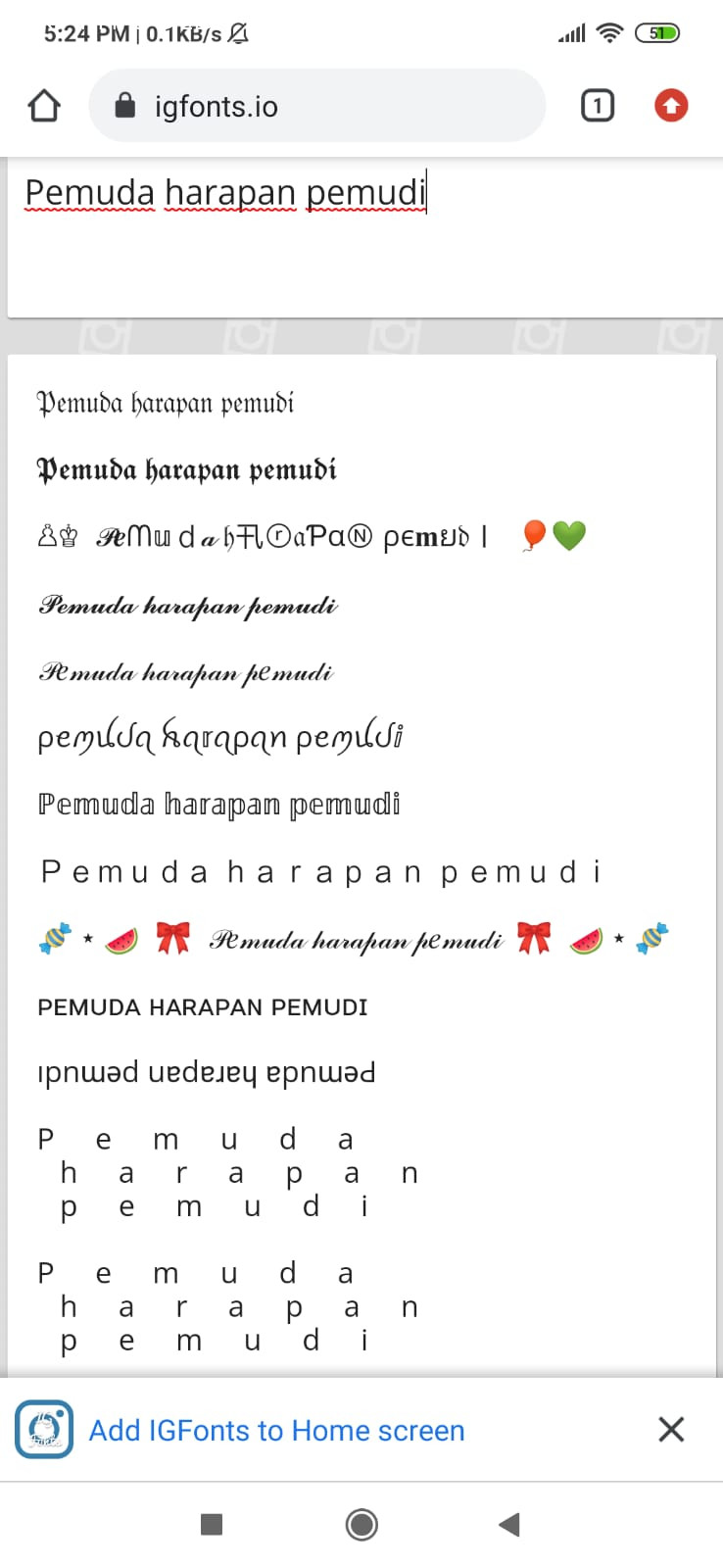
Stunning Fonts To Elevate Your Instagram Aesthetic
Title: 10 Instagram-Worthy Type Designs That Will Make Your Content Pop!
Introduction:
In the visually-driven world of Instagram, standing out from the crowd is essential. One way to captivate your audience is by incorporating unique and eye-catching type designs in your posts. Enter font keren ig, a treasure trove of trendy and innovative fonts that can transform your Instagram game to the next level. From elegant scripts to bold and playful designs, we’ve rounded up 10 Instagram-worthy type designs to inspire your next post. Sit back, relax, and get ready to discover the perfect fonts that will make your content pop!
1. Calligraphy Chic:
Inject a touch of elegance and sophistication into your Instagram feed with calligraphy fonts. These graceful and fluid type designs add a sense of grace to any post, making them perfect for inspirational quotes, wedding announcements, or stylish captions.
2. Whimsical Handwriting:
Capture the essence of creativity and playfulness with whimsical handwriting fonts. These fonts mimic the flow and spontaneity of handwritten text, giving your posts a unique and personal touch. Utilize them for artsy quotes, recipe cards, or life updates to truly showcase your personality.
3. Retro Vibes:
Take a nostalgic trip down memory lane with retro-inspired type designs. These fonts are perfect for throwback posts, vintage-inspired branding, or capturing the essence of a bygone era. Whether it’s the groovy ’70s or the neon-lit ’80s, there’s a retro font out there to transport your followers back in time.
4. Minimalist Marvels:
Sometimes, less is more. Embrace the beauty of simplicity with minimalist fonts that exude a clean and contemporary aesthetic. Perfect for sleek captions, product labels, or minimalist branding, these type designs make a bold statement without overwhelming the visual composition.
5. Playful Serifs:
Serif fonts are known for their elegance, and when combined with a touch of playfulness, they become Instagram gold. These type designs feature small decorative lines (serifs) at the ends of letters, adding a touch of sophistication to your posts. Ideal for stylish quotes, fashion-related content, or refined brand identities.
6. Bold and Brave:
When you want to make a statement, bold fonts are your go-to. These powerful and attention-grabbing type designs demand attention, making them perfect for impactful quotes, announcement posts, or event promotions. Don’t be afraid to go big and bold to leave a lasting impression on your followers!
7. Geometric Delights:
Bring a modern and futuristic vibe to your feed with geometric fonts that feature clean lines and angular shapes. These type designs offer a striking visual appeal, making them ideal for tech-related posts, architectural photography, or minimalist branding that stands out from the crowd.
8. Handcrafted Beauty:
Unleash your creativity with handcrafted fonts that embrace imperfections and uniqueness. These type designs often mimic the look of hand-drawn artwork, providing an organic and artistic touch to your posts. Perfect for DIY projects, personal anecdotes, or heartfelt messages that require a personal touch.
9. Nature-Inspired:
Connect with your audience on a deeper level by incorporating nature-inspired type designs. These fonts often feature elements from the natural world, such as leaves, flowers, or even animal shapes. They’re ideal for outdoor-related posts, eco-friendly initiatives, or promoting a sustainable lifestyle.
10. Futuristic Finesse:
Elevate your Instagram game with futuristic type designs that transport your followers to another dimension. These fonts often feature unique and unconventional letterforms, giving your posts a cutting-edge and futuristic vibe. Perfect for sci-fi enthusiasts, tech-related content, or showcasing your forward-thinking vision.
In conclusion, font keren IG is a treasure trove of type designs waiting to transform your Instagram feed. Whether you’re aiming for elegance, playfulness, nostalgia, or a futuristic touch, there’s a font out there to match your aesthetic. Embrace the power of type design and watch your Instagram content pop like never before!